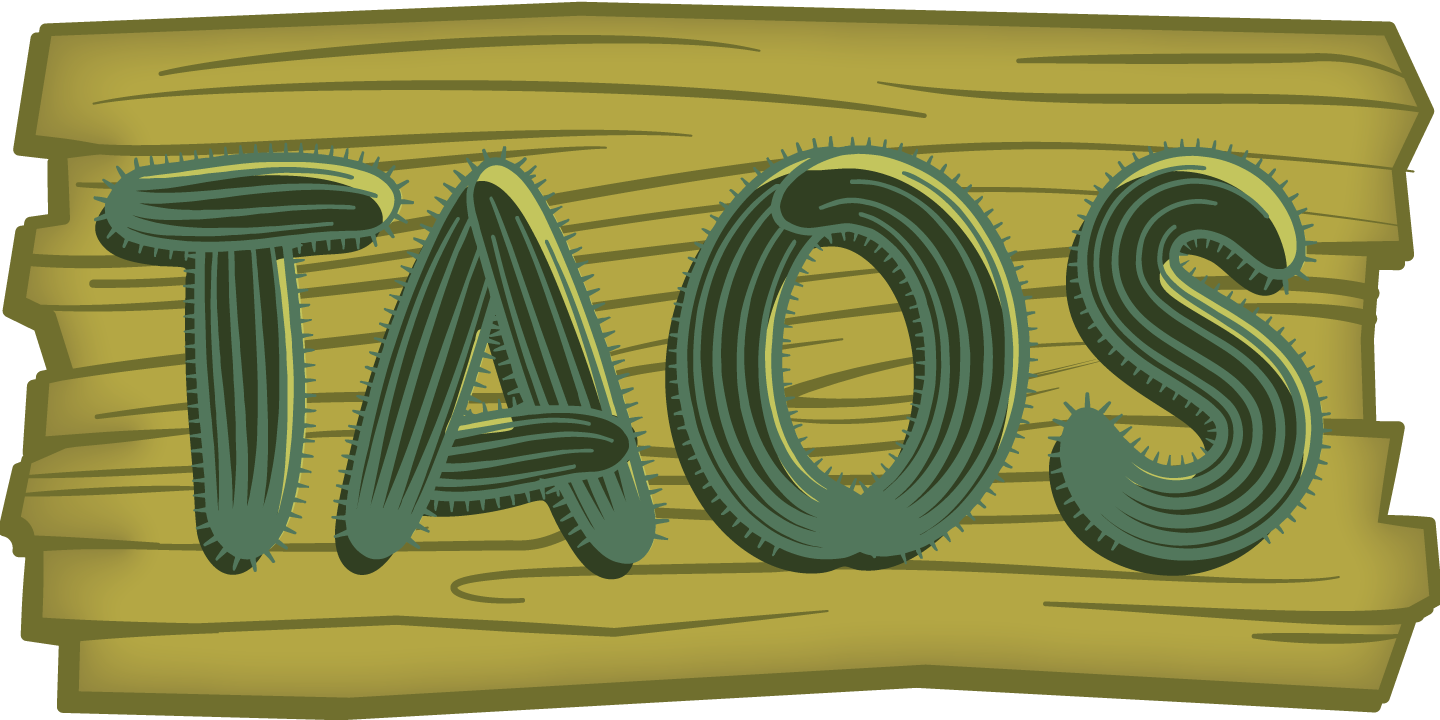
Taos Font is a captivating and unique typeface that brings a distinctive sense of rugged artistry and frontier spirit to any design. Its handcrafted feel and rustic charm make it an excellent choice for projects aiming to evoke authenticity, adventure, and a touch of the American Southwest. Imagine it gracing boutique brewery labels, outdoor adventure brand logos, indie music festival posters, unique travel agency branding, bespoke artisanal product packaging, or captivating book covers with a historical or natural theme. This font excels at conveying warmth, an adventurous spirit, and a genuine, unrefined aesthetic, ensuring your message stands out with personality and a memorable visual story.
What makes Taos Font truly exciting is its ability to seamlessly blend a vintage aesthetic with a modern, artistic sensibility. It possesses an organic, slightly irregular quality that feels deeply personal and authentic, as if each character were hand-drawn specifically for your project. This unique charm helps create an immediate connection with your audience, making your content more relatable and impactful. It’s a font that doesn't just display text; it tells a tale of exploration, craftsmanship, and individuality, offering a refreshing departure from overly polished typefaces and breathing life into your creative endeavors. Taos Font is a powerful tool for brands and creatives who want to project an image of heritage and adventurous spirit.
The Taos Font family often offers various options to enhance its expressive capabilities. You'll typically find it available in a strong, regular weight that best showcases its unique design elements. Some versions might include stylistic alternatives for certain characters or a set of ligatures that further emphasize its handcrafted appeal and allow for more customized typographic compositions. The comprehensive character set generally covers standard Latin characters, numbers, and a selection of punctuation marks, ensuring that Taos Font Free Download is suitable for a wide variety of creative and commercial applications. Its distinctive and memorable presence ensures that any project featuring Taos Font will leave a lasting and impactful impression.